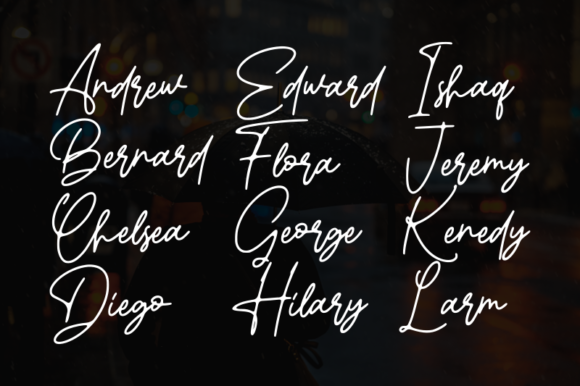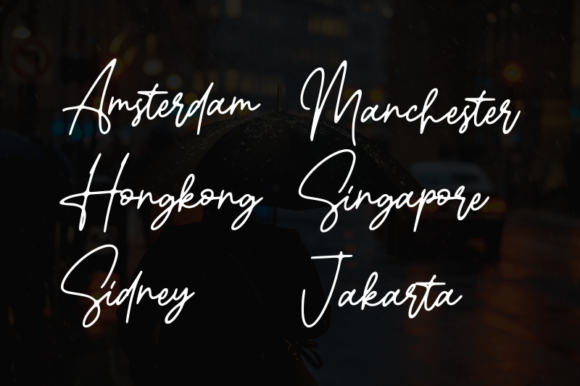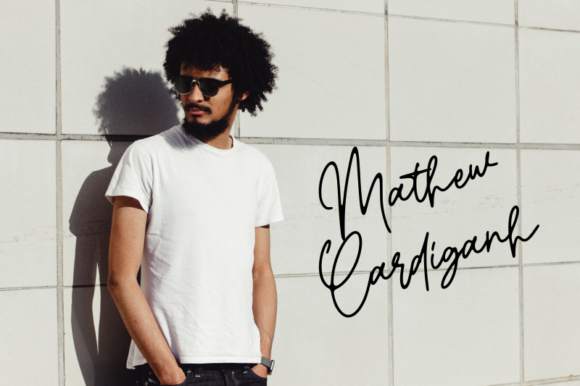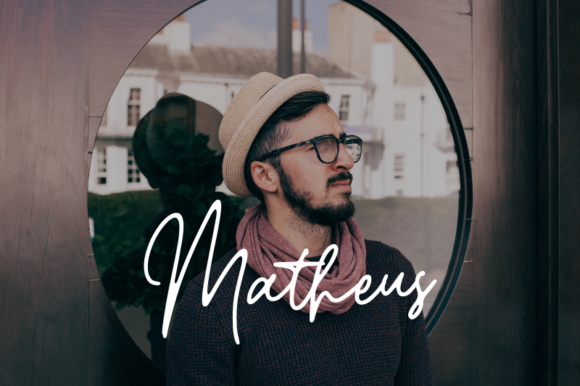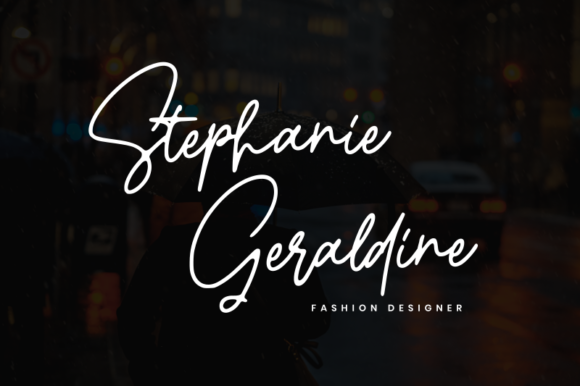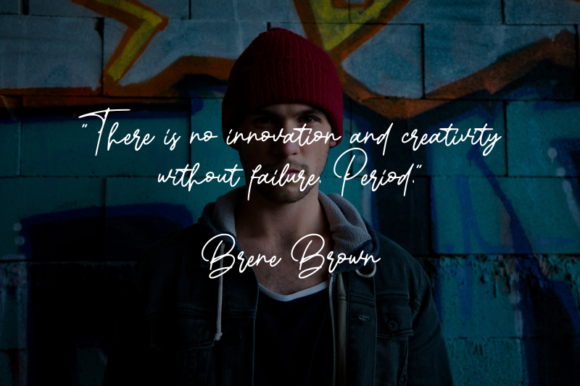
Introduction to Gatheline Font
Remember the moment when you stumbled upon the perfect font for your creative project? The one that brought your design idea to life and made it truly stand out? For designers, finding that elusive font can be a game-changer, elevating the entire aesthetic of their work. Today, we’re excited to introduce you to the Gatheline Font, a charming and sophisticated script font that’s sure to captivate your audience.
With its unique approach to lettering, the Gatheline Font offers a high-quality design resource that’s perfect for adding an authentic touch to any project. Whether you’re working on a logo, branding, or typography-based design, this font is sure to deliver. Plus, with its transparent background, you can easily customize it to fit your design needs. And the best part? The Gatheline Font is available for free download, making it an invaluable asset for designers of all levels.
Key Features of Gatheline Font
- High-quality, unique design ideal for creative projects and designs
- Perfect for use in digital designs, such as logos, icons, and graphics
- Includes a comprehensive character set with over 200 glyphs
Honest Review: Gatheline Font
As a designer, I’m always on the lookout for high-quality design resources to elevate my creative projects. The Gatheline Font is one such find that I’m excited to share with you.
What works well: ✨ The Gatheline Font is incredibly versatile, making it perfect for a wide range of design applications. Its modern and sleek aesthetic gives it a sophisticated feel that’s sure to impress. I also appreciate the transparent background, which allows for seamless integration into various design elements.
What could be improved: ⚠️ While the font is free to download, I noticed that it’s only available in a limited range of weights. This might be a drawback for designers who require more flexibility in their font choices. Additionally, the font’s boldness can sometimes feel overpowering, so be mindful of your typography choices.
Overall, I’m thoroughly impressed with the Gatheline Font. Its high quality and versatility make it an excellent addition to any designer’s toolkit. Plus, it’s a free download, which is always a bonus! If you’re looking for a reliable design resource, I’d definitely recommend giving this font a try.
- Modern and sleek aesthetic
- Only available in a limited range of weights
How to Use Gatheline Font
The Gatheline Font is a high-quality design resource perfect for any creative project. This versatile font is available for free download and features a transparent background, making it easy to incorporate into various design elements.
Tips for Getting the Most Out of Gatheline Font
To get the most out of Gatheline Font, experiment with different font sizes and styles to create visually appealing designs. Use the transparent background to create unique and eye-catching effects.
The Gatheline Font is perfect for any creative project, including logos, business cards, and social media graphics. Its high-quality design and transparent background make it a versatile resource for designers and non-designers alike.